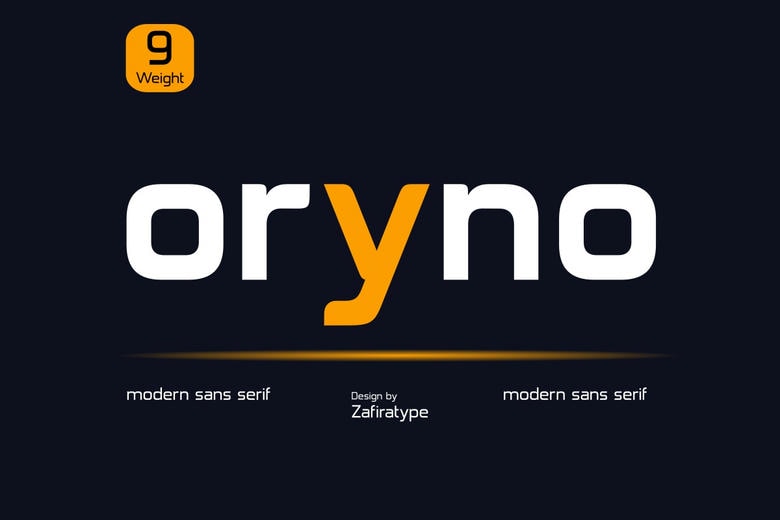
Oryno Font
Oryno is a new interpretation of the contemporary Sans Serif typeface. Fashioned to precision of clarity and versatility, Oryno is the ideal of typographic variety. The variety of its nine weights, Thin to Black, makes it flexible, which means it is ideal to fit small, minimalist designs or bold, strong headlines.
Oryno is a work of modern design, with its smooth lines and balanced proportions. It perfectly matches a range of applications like a unique branding, the state of the art editorial, or user-friendly UI design. Whether behind the glossy pages of a magazine, or the pixel-perfect screen of a mobile device,
Oryno continues to provide a visual impact that is strong yet at the same time offers the highest readability. Get into the world of Oryno and declare your design statements loud and know all.